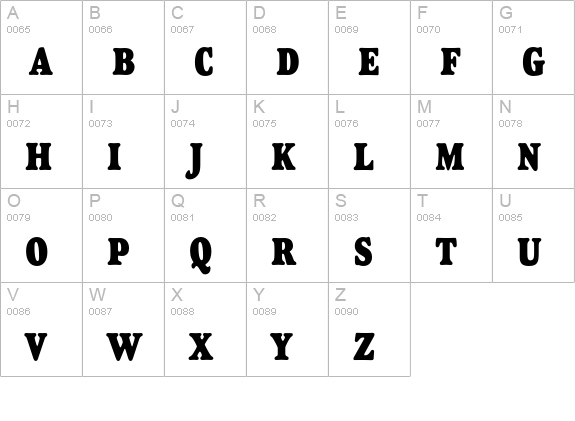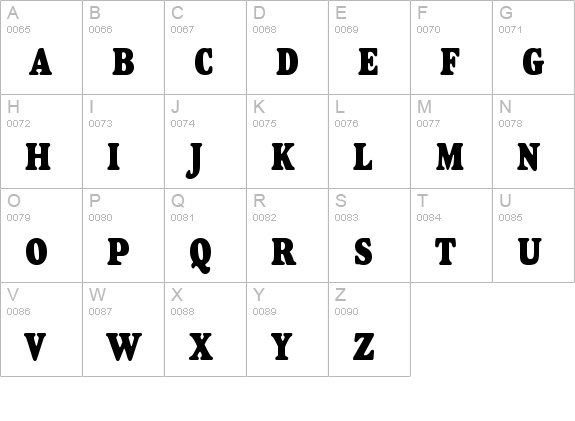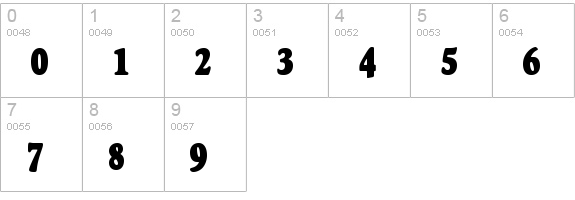
Goudy Heavyface Condensed is a distinctive, condensed-width variant in the Goudy typeface family \xE2\x80\x94 well suited to design and typography projects.
Goudy Heavyface Condensed font is a bold and striking typeface that exudes a sense of strength and confidence. With its condensed design, this font is perfect for making a statement in headlines, logos, and other prominent display text. The sharp serifs and distinctive letterforms give Goudy Heavyface Condensed a timeless and classic look that commands attention. What makes Goudy Heavyface Condensed even more appealing is that it is available for free download at FontsMarket.com. This means that you can easily access this powerful font for all your creative projects without any cost. Whether you're working on branding, advertising, or any other design project, Goudy Heavyface Condensed is sure to make a bold impact. Download it now and elevate your designs with this versatile and eye-catching typeface.